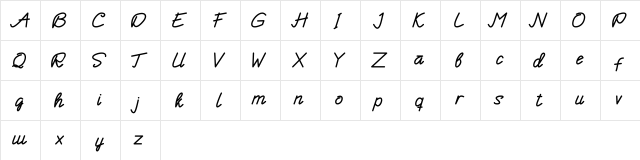
Enphand Regular
Design Context for Enphand Typeface
Enphand brings a calligraphic fluidity to the page — its connecting strokes and expressive curves give it an unmistakably human quality.
Font Pairing: Combine Enphand with a simple geometric sans for maximum contrast — the tension between flowing curves and clean structure is a classic typographic pairing.
Pro Tip: Pair Enphand with a clean sans-serif for supporting text. The contrast between fluid script and geometric structure creates an elegant typographic hierarchy.